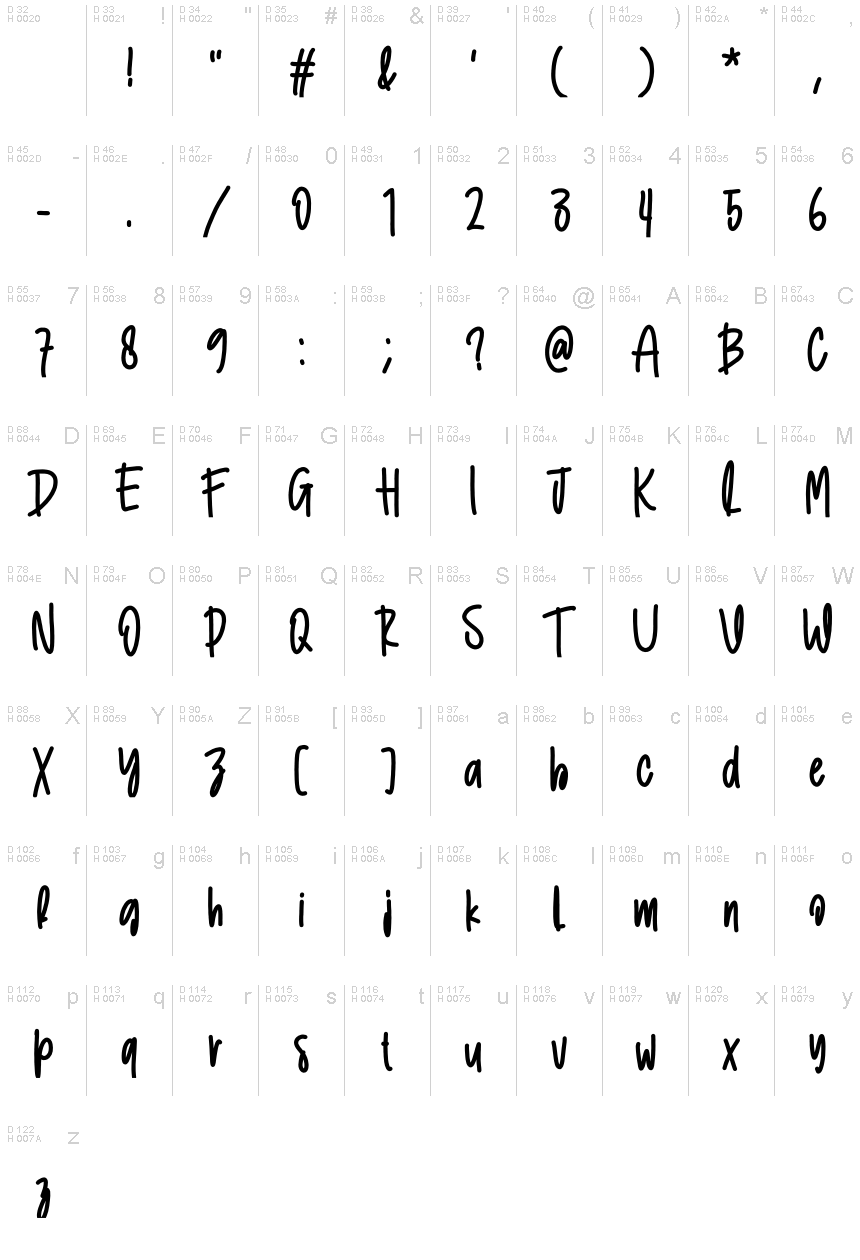
Picture Book
Picture Book, crafted by the talented Andi Moz, exudes a captivating, handwritten charm. Its condensed width and organic strokes lend a whimsical, playful aesthetic, evoking a sense of youthful creativity and warmth. The font's distinctive, expressive letterforms seamlessly blend elegant curves with confident, flowing lines, creating a unique visual identity that immediately captivates the eye.
This versatile font shines in a variety of design contexts, from children's storybooks and educational materials to branding and packaging applications. Its playful yet polished appearance makes it an excellent choice for projects aiming to convey a sense of warmth, approachability, and vibrant personality, such as greeting cards, invitations, and social media content.